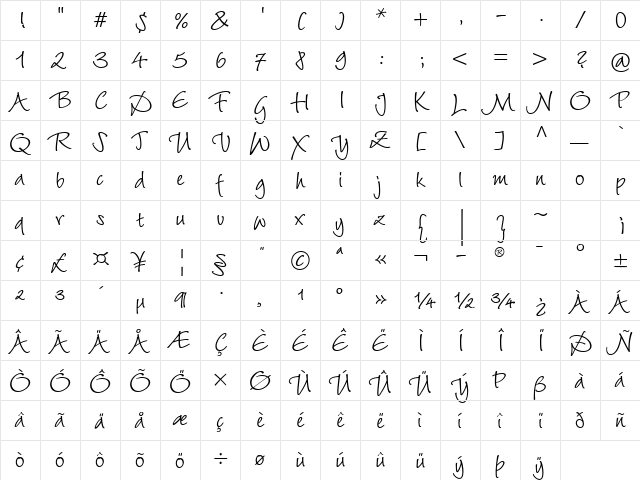
Wiesbaden Swing Com Regular
| Designer | Rosemarie Kloos-Rau |
Design Context for Wiesbaden Swing Com Typeface
Wiesbaden Swing Com is a composed and adaptable typeface that performs quietly and consistently across a wide range of design contexts.